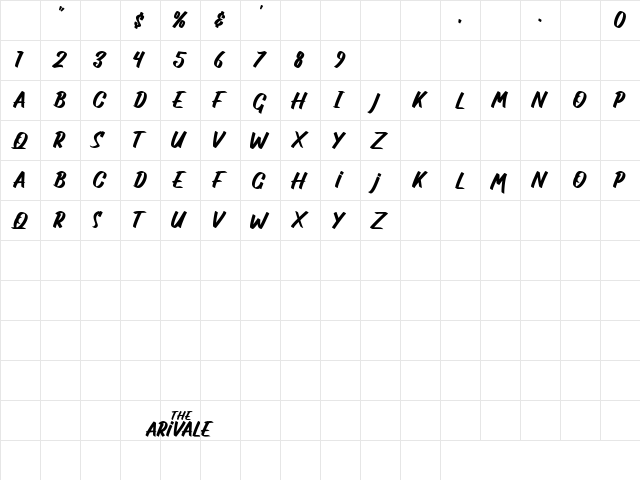
The Arivale Demo Regular
| Foundry | Ditoollis Project |
| Designer | Muhammad Faizal Said |
Design Context for The Arivale Demo Typeface
The Arivale Demo is a composed and adaptable typeface that performs quietly and consistently across a wide range of design contexts.